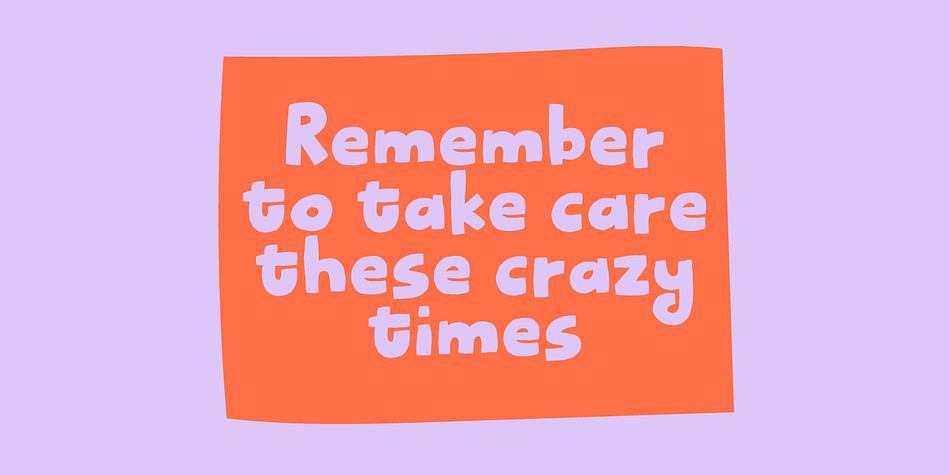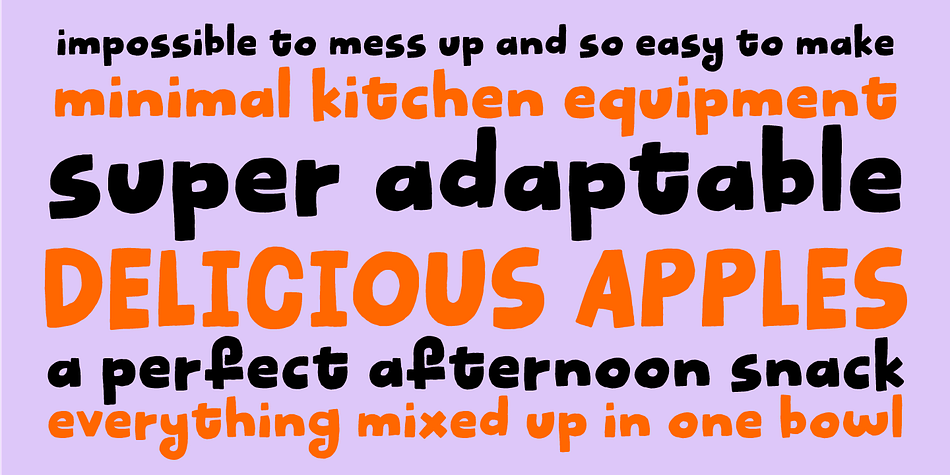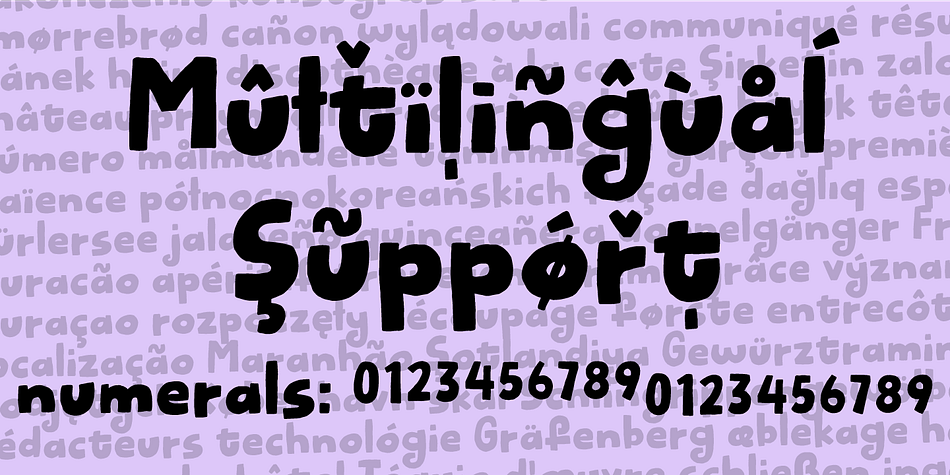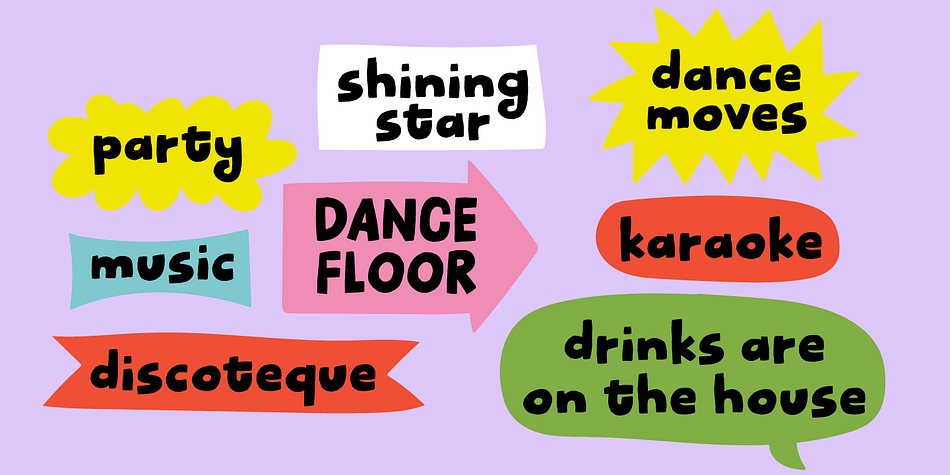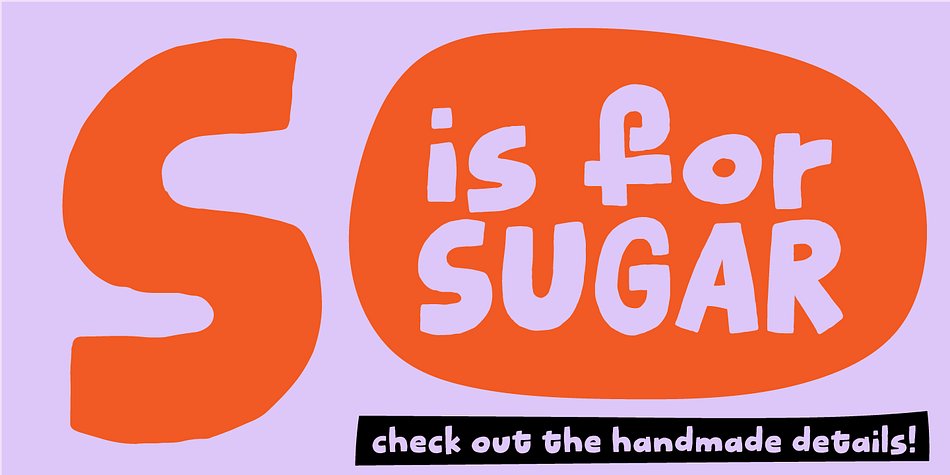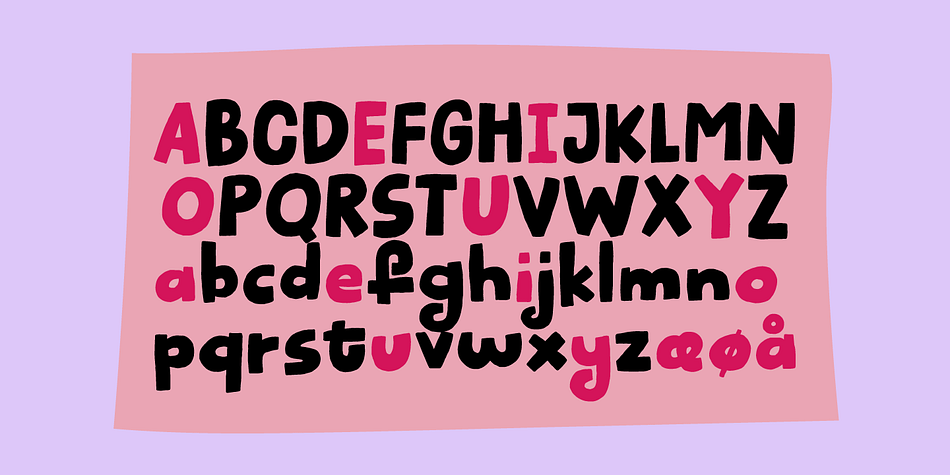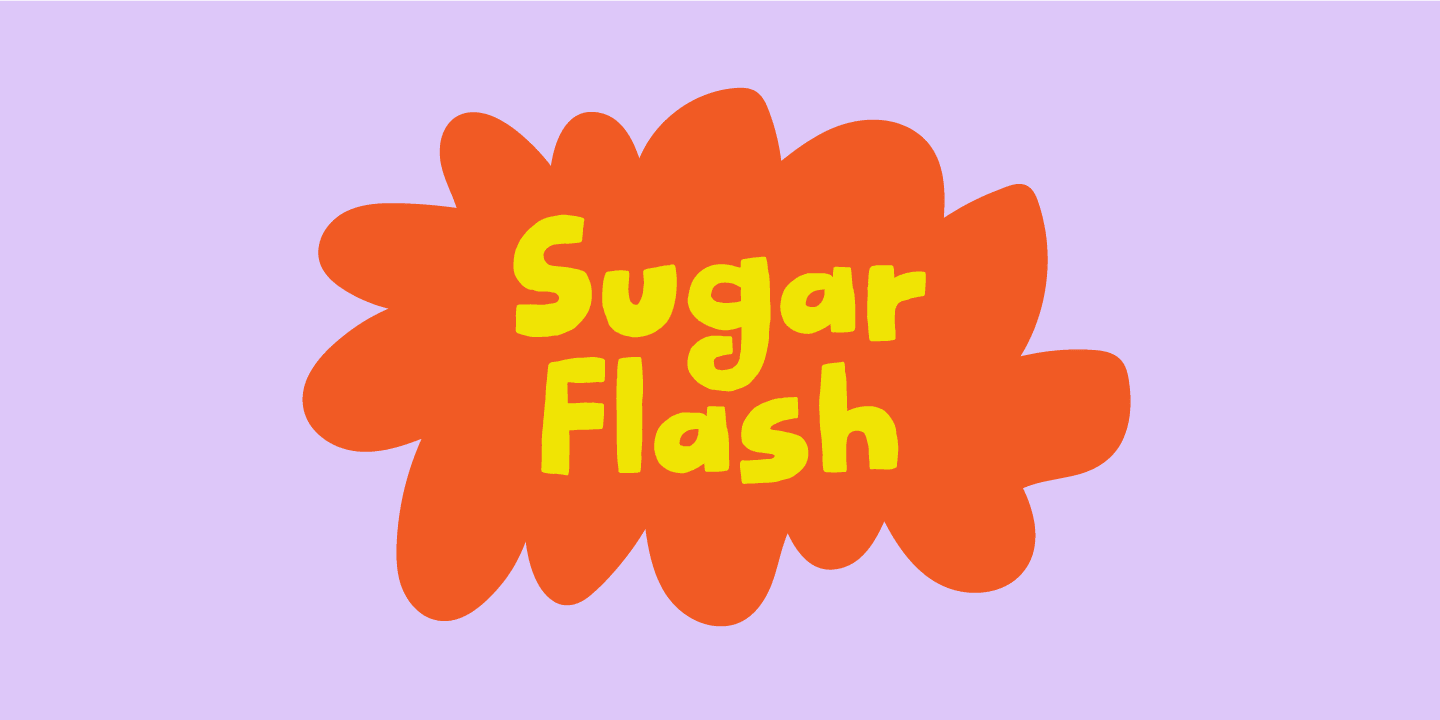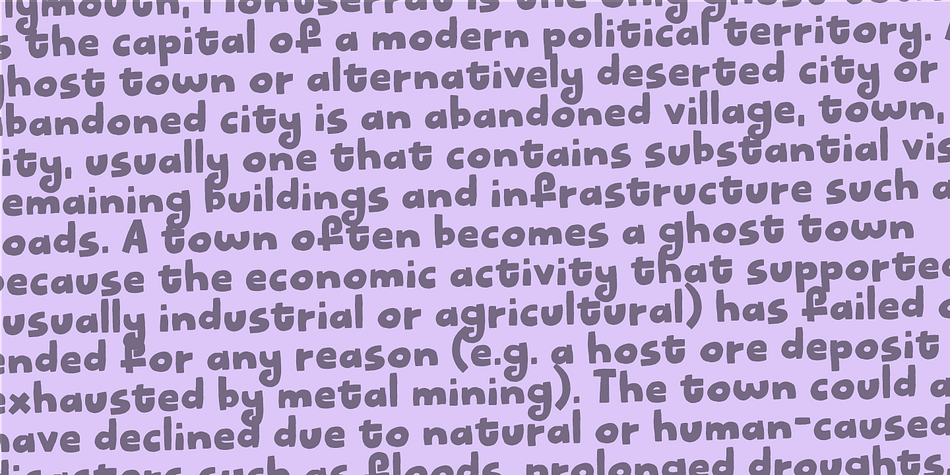
Sugar Flash
Designed by Jakob Fischer, Sugar Flash is a hand display and kids font family. This typeface has two styles and was published by Bogstav.
Sugar Flash is my grungy comic handmade font: I suggest that you use it for something that has to do with a partyinvitation or maybe products for kids…and sweets…in fact anything that needs a sweet angle!